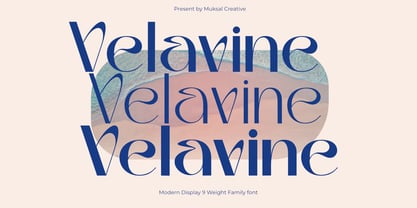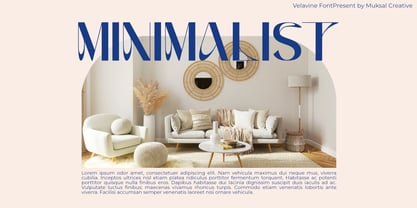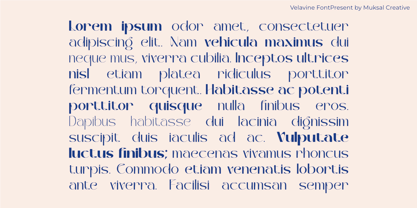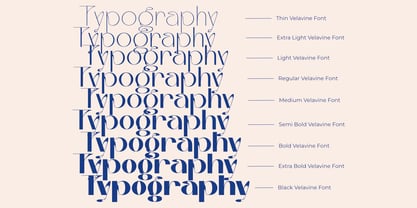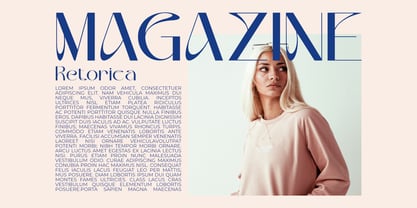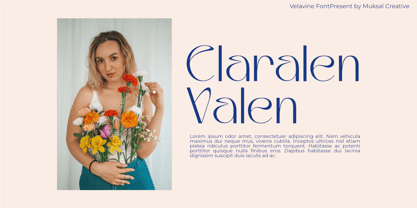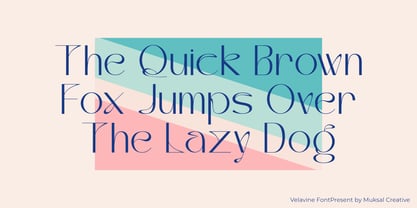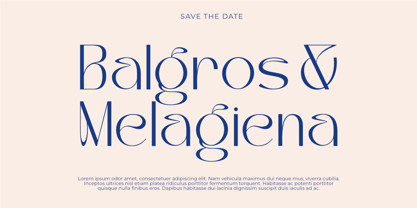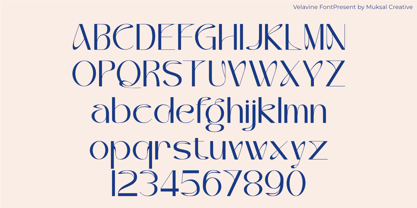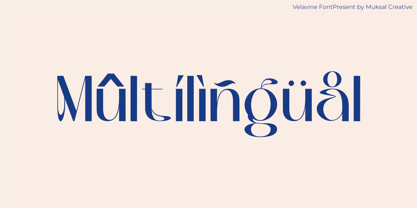
Velavine
by Muksal Creatives
The Velavine Font Family was designed by Muksalmina and published by Muksal Creatives. Velavine contains 9 styles and family package options. More about this family
Valavine is a modern and elegant font family with 9 stunning styles, ranging from the ultra-thin Thin to the boldest Black. Each style in the Valavine family is meticulously crafted to strike a balance between aesthetics and functionality, making it the perfect choice for a wide range of design needs.
This font blends subtle curves with sharp lines, creating a unique and sophisticated look. Valavine is ideal for editorial design, branding, product packaging, and digital media, adding a modern and professional touch to any project.
With its extensive range, Valavine offers high flexibility to create a strong typographic hierarchy, making it easy for users to adjust styles according to their design requirements.